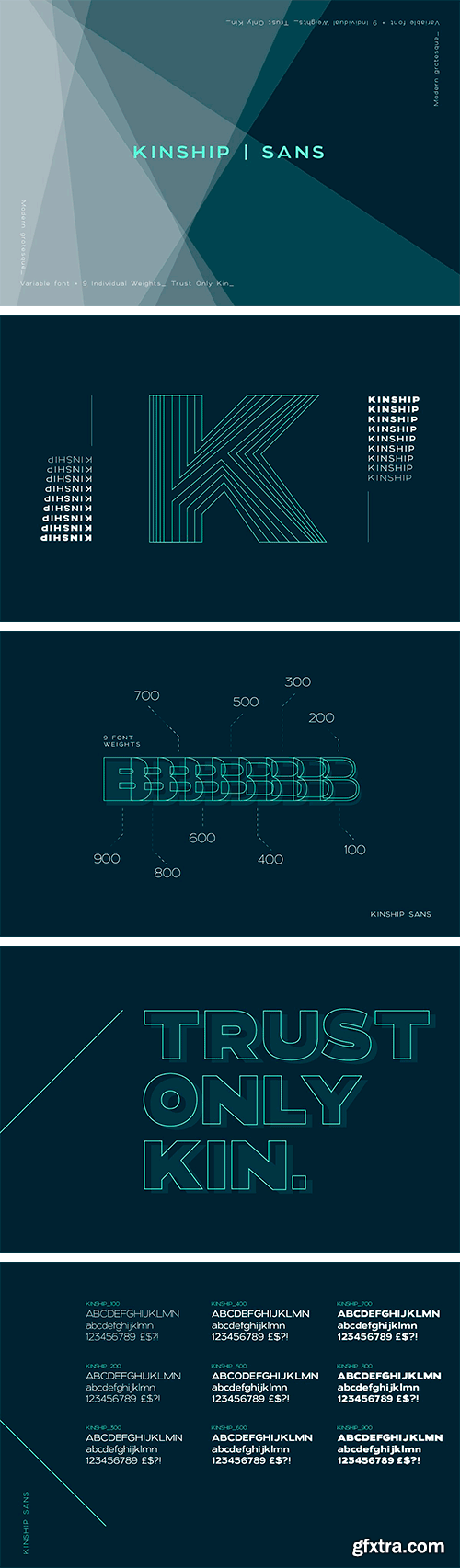
CM - Kinship Sans - Grotesque Font Family 4028947
Kinship has been created to be an all-round go-to grotesque font that will work well for copy and titles. With nine standard weights, this font is more flexible than a bungee rope. Kinship is a sans serif modern classic grotesque font, perfect for adding personality to logos and brochures.